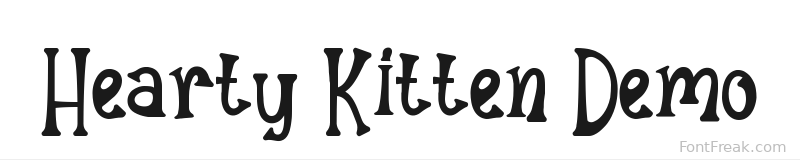
Hearty Kitten Demo
Hearty Kitten Demo is a delightful display font crafted by Noah Type, characterized by its playful and whimsical design. This font falls into the decorative category, making it ideal for projects that require a touch of charm and creativity. Visually, the Hearty Kitten Demo font features a unique blend of rounded and sharp edges, creating a dynamic contrast that captures attention. The stroke weight is varied, lending an organic feel that enhances its playful nature. The spacing is generous, allowing for easy readability while maintaining a lively rhythm that invites engagement.
This font is particularly well-suited for a variety of creative applications. It shines in wedding invitations where its charming aesthetic can evoke a sense of joy and celebration. Additionally, Hearty Kitten Demo is perfect for children’s book covers, capturing the imagination of young readers with its fun and friendly appearance. Restaurant menus can also benefit from this font’s inviting character, drawing customers in with a sense of warmth and approachability. Furthermore, it can be effectively used in social media graphics, helping content creators convey their messages in a captivating manner.
In a crowded font marketplace, the Hearty Kitten Demo font stands out due to its unique blend of playfulness and versatility. Whether used for personal projects or professional endeavors, this font enhances any design with its delightful charm. Don’t miss the opportunity to access the Hearty Kitten Demo font free download and elevate your creative work.